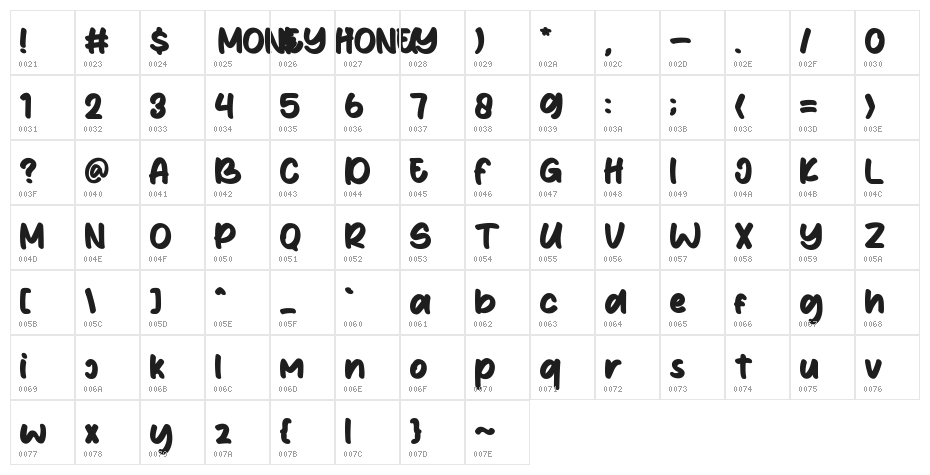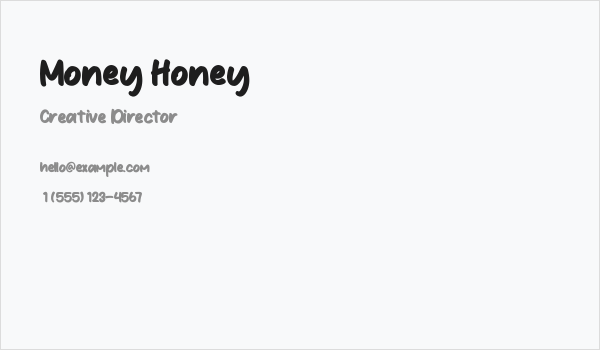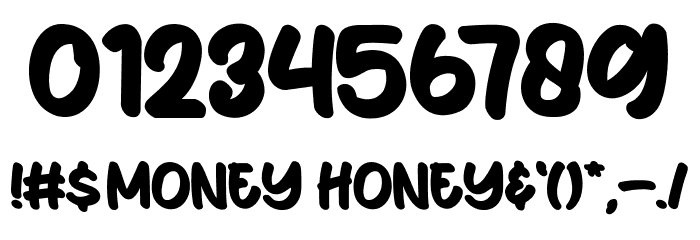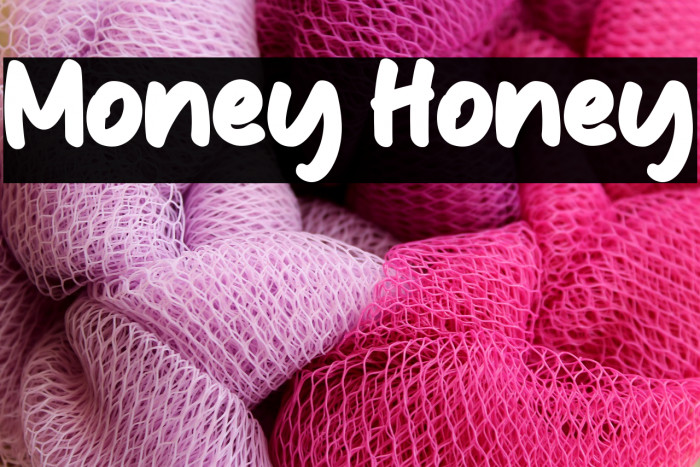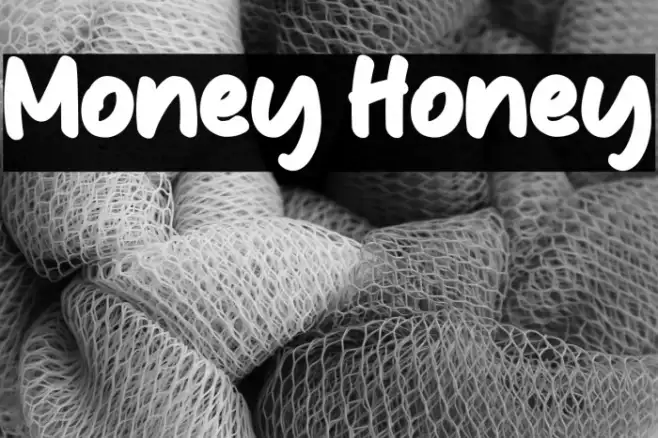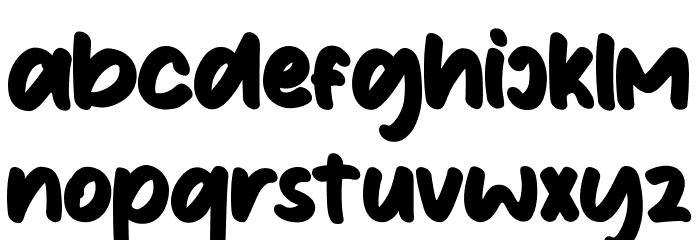
Money Honey Font
Money Honey Description
This font features a bold and playful script style with a handwritten appearance. The characters are rounded and have a smooth flow, giving them a friendly and approachable look. The uppercase and lowercase letters maintain a consistent style, with the lowercase letters slightly smaller and more compact. The numbers are equally bold and maintain the playful aesthetic. Special characters are integrated seamlessly, adding to the font's versatility. This font is ideal for projects that require a fun and informal touch, such as children's books, playful branding, or casual invitations.
| Overall Style | Playful |
| Use Case | Logos, Headlines, Invitations |
| Proposed Projects | Ideal for children's books, playful branding, casual invitations, and fun social media graphics. |